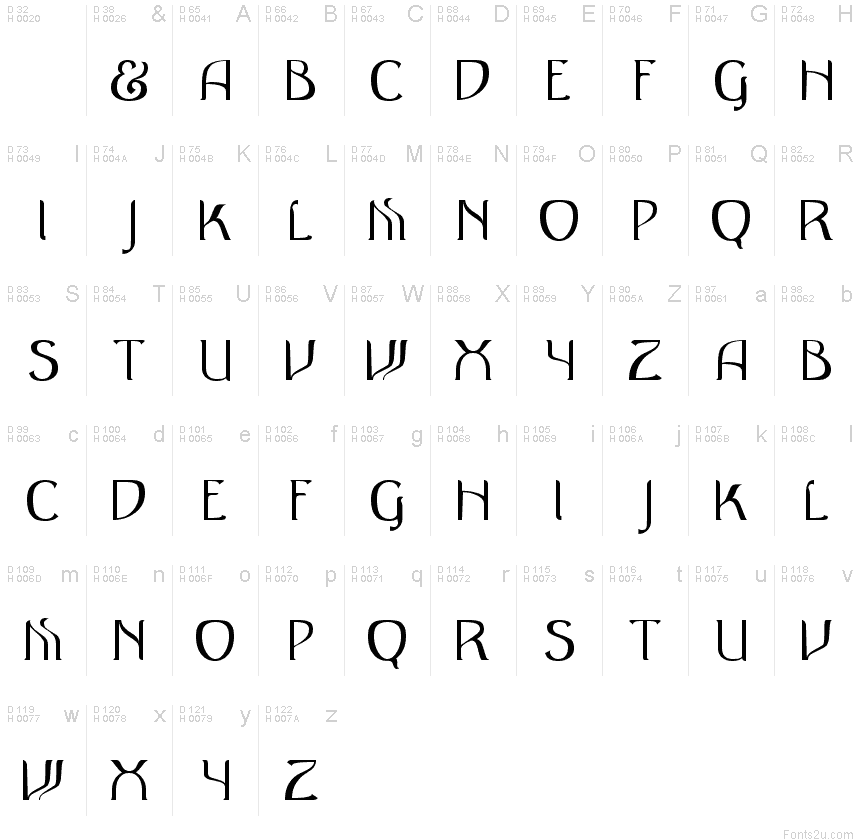
Antique
Antique font by J. Macagba is a free vintage display typeface that feels like it’s been pulled from an old shop sign and polished for modern use. Tall, elegant letters with long verticals and subtly flared curves create a stately, theatrical presence, while the tight rhythm between characters gives headlines a strong, unified silhouette. There’s a slight Art Deco flair in the geometry, but the overall mood is warm and nostalgic rather than cold or mechanical.
Using Antique, you can instantly infuse drama into posters, book covers, wine or perfume labels, boutique logos, packaging, and vintage-themed event graphics. This free font shines when set large, letting those elongated forms and generous curves really breathe. For body copy or supporting text, pair Antique with a clean, unobtrusive sans serif at smaller sizes so the ornate title work stays center stage.